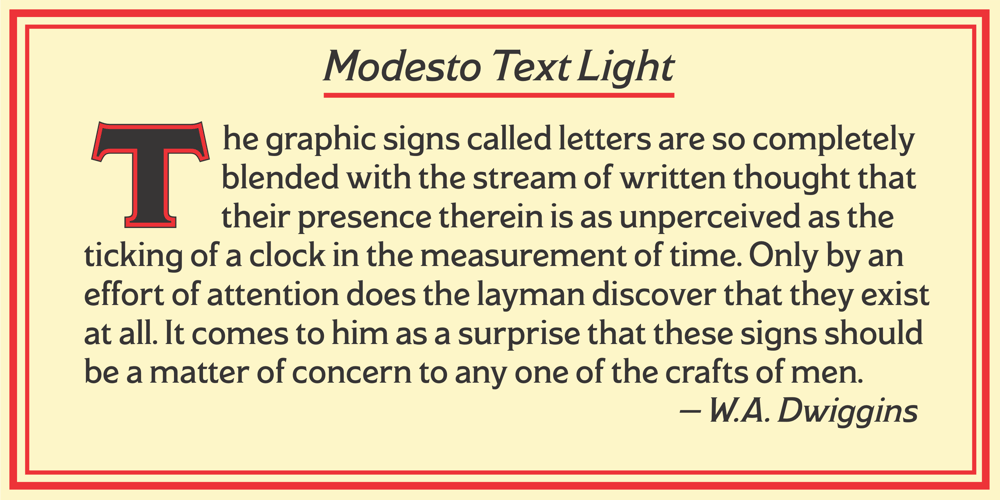
Modesto Text
Modesto Text font
Modesto Text Font Family was designed by Jim Parkinson and published by Parkinson. Modesto Text contains 6 styles and family package options. The Modesto Text Family is text in name only. It’s called Text because it has a Lower Case, and also to distinguish it from the rest of the Modesto clan. Modesto is a loose-knit family based on a signpainters lettering style popular in the late-19th and early-20th centuries. It evolved from the lettering I used for the Ringling Bros. and Barnum & Baily Circus Logo. The Modesto family was not planned. It just happened, a few fonts at a time over about fifteen years. In 2014 seven new Italic fonts and two Chromatic families were added. There is a downloadable MODESTO USER MANUAL PDF in the Gallery section for this family.